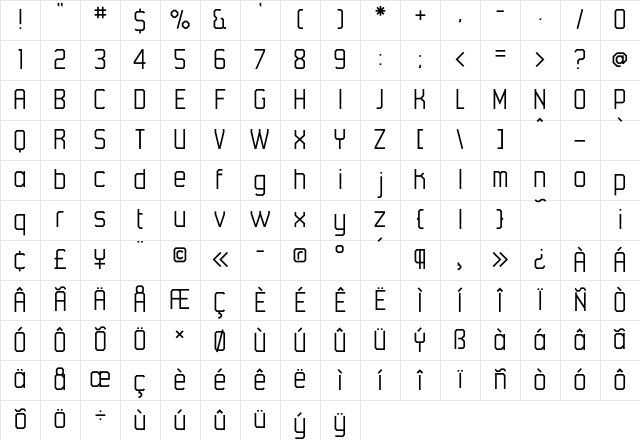
45degrees Light Regular Free Font
45degrees Light Regular
45degrees Light Family
Complete 45degrees Light Regular glyph index. Displaying only characters natively supported by 45degrees Light Regular font.
Design Context for 45degrees Light
45degrees Light is a composed and adaptable typeface that performs quietly and consistently across a wide range of design contexts. Its slender proportions lend an understated elegance to any composition.